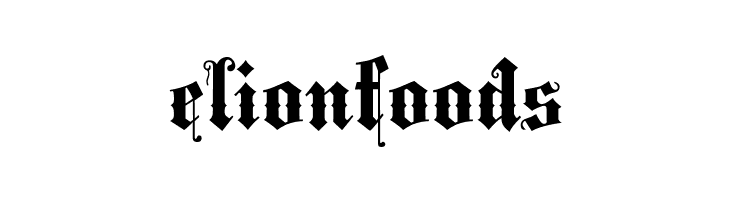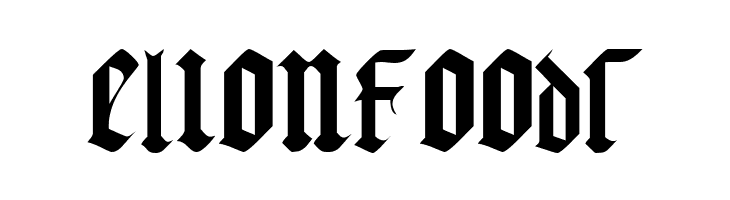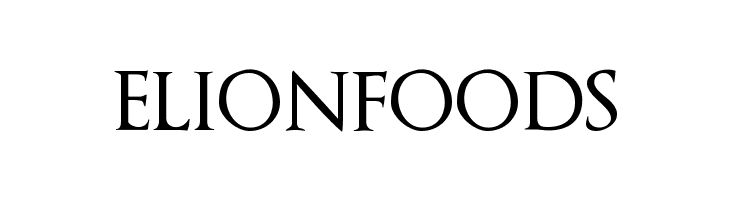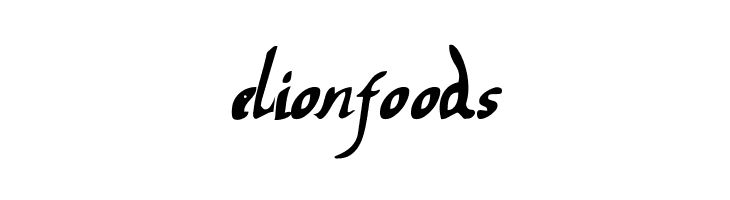
An ornate, framed blackletter style font with intricate detailing.
A decorative, medieval-inspired font with ornate flourishes and bold strokes.
A bold, decorative blackletter font with intricate swashes.
An ornate and decorative font with floral and vine motifs, ideal for historical themes.
A classic serif font with elegant, sharp serifs and a traditional appearance.